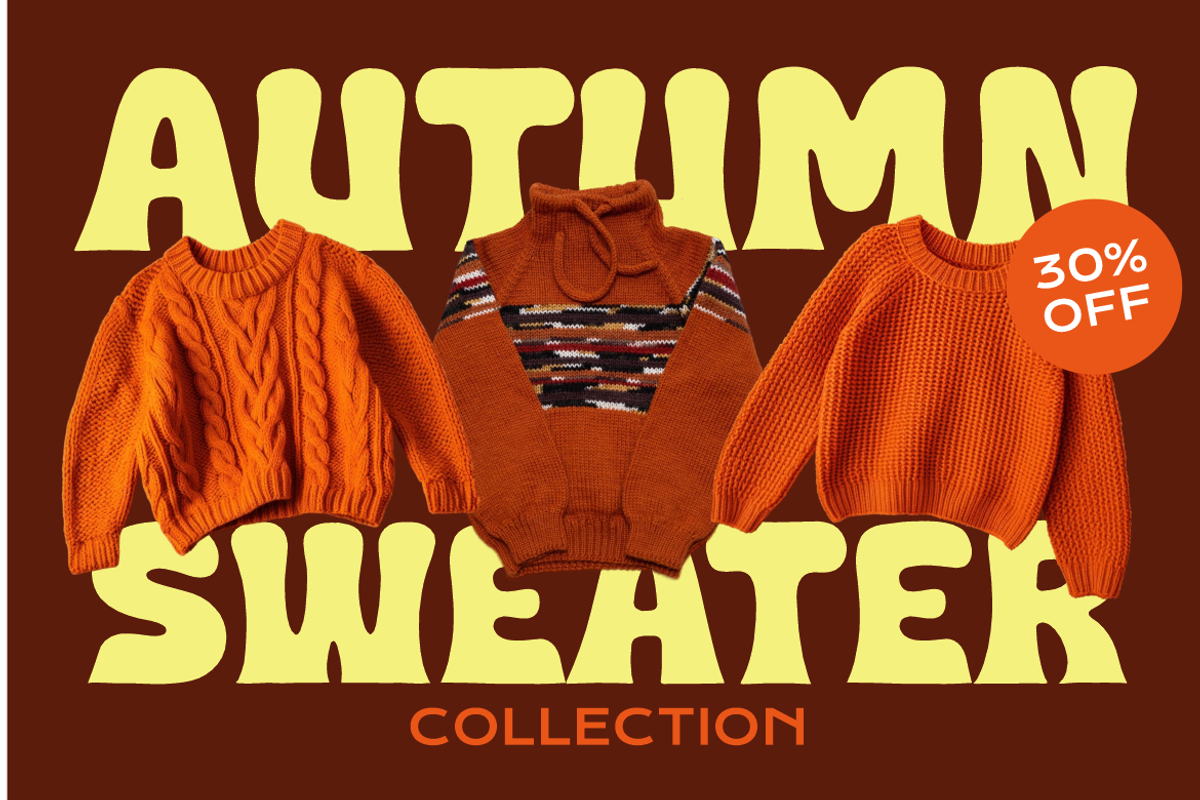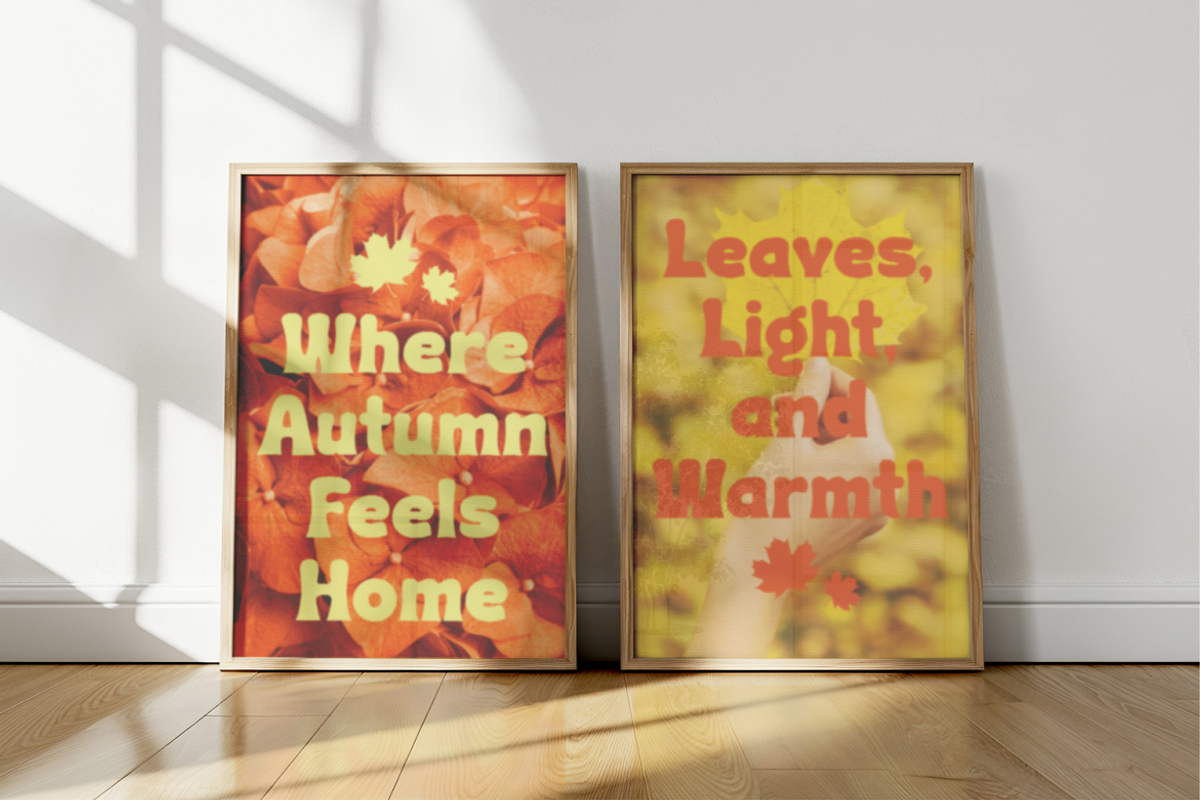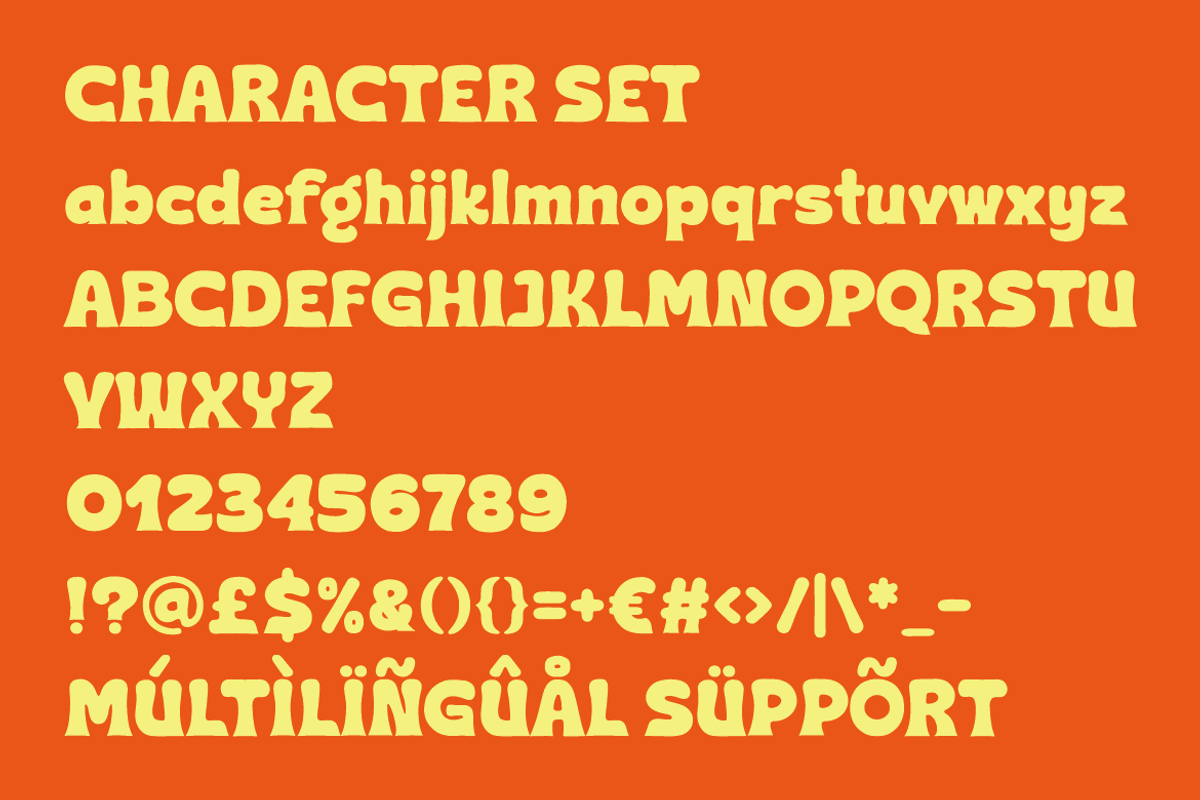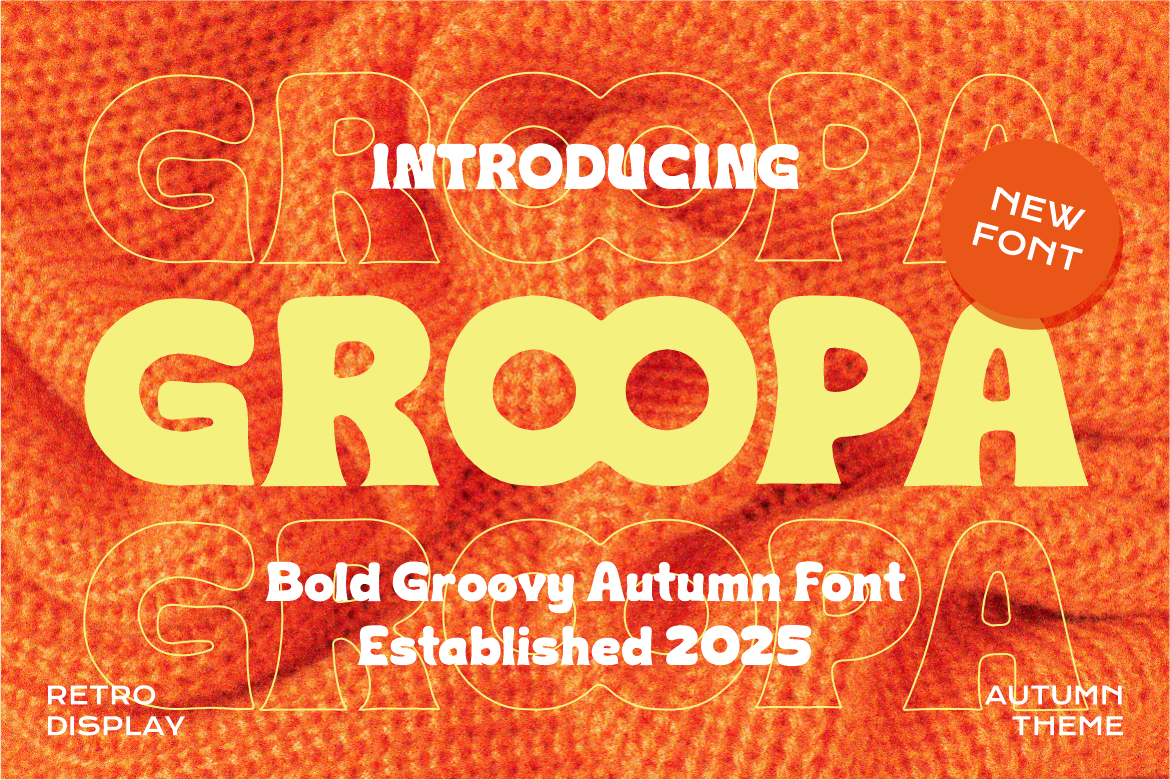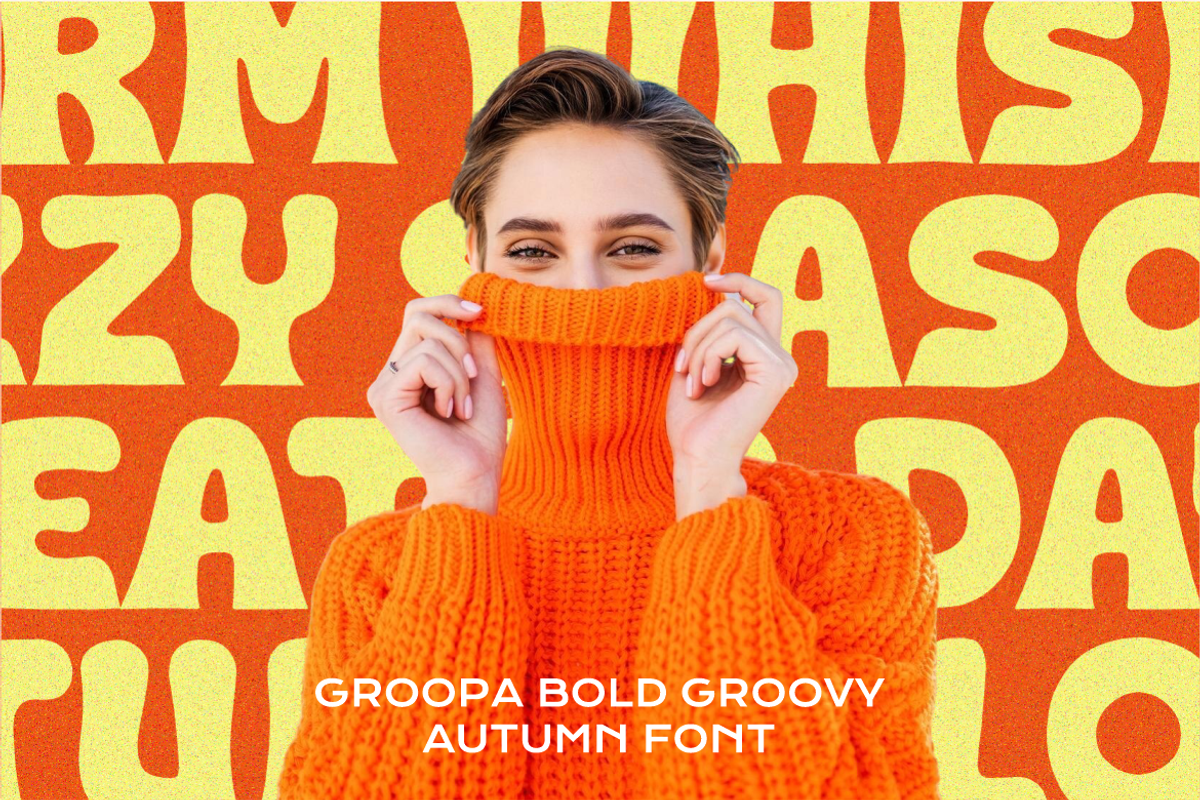
Groopa Bold Groovy Autumn Font
Groopa Bold Groovy Autumn Font is a display typeface built around thick, rounded letterforms with confident weight and soft contours. Each character features a heavy structure with smooth curves and slightly uneven rhythm, creating a friendly yet bold presence. The proportions are wide and stable, giving the font strong visual impact even at large sizes. Stroke endings feel organic rather than mechanical, which adds warmth and a handcrafted impression. The overall construction avoids sharp corners, resulting in a smooth, flowing silhouette that feels inviting and expressive. Despite its bold mass, spacing remains balanced, allowing words to stay readable and clear. Groopa Bold Groovy Autumn Font works well for designers who want strong personality without sacrificing legibility.
This font carries a groovy and retro-inspired style with a cozy, nostalgic tone. It reflects a warm seasonal mood while staying versatile for modern design needs. The playful curves and rounded weight make it ideal for logos, branding systems, headlines, posters, packaging, and advertising materials. It also performs well on invitations, greeting cards, book covers, magazine titles, stickers, and creative merchandise. The font supports uppercase, lowercase, numerals, punctuation, and multilingual characters, making it reliable for global projects. Groopa Bold Groovy Autumn Font helps brands communicate warmth, creativity, and approachability. It fits businesses, lifestyle products, fashion campaigns, and editorial layouts that need a bold retro voice. Designers can use it to create memorable titles, expressive quotes, and eye-catching promotional designs. Groopa Bold Groovy Autumn Font brings character, comfort, and confidence into every typographic composition.